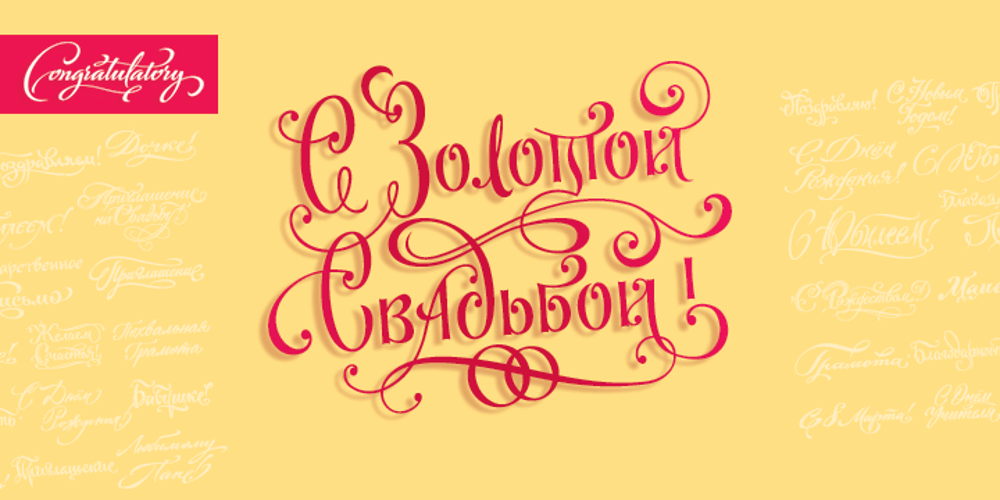
Congratulatory Font Family was designed by Dmitriy Shchetinskiy and published by Dmitriy Shchetinskiy. Congratulatory contains 1 styles and family package options. Congratulatory consist of 36 Cyrillic calligraphic greetings for different events. Greetings are original and handwritten. This font makes it possible to use high quality calligraphy in your projects – greeting cards, certificates, invitation cards, letters of commendation etc.